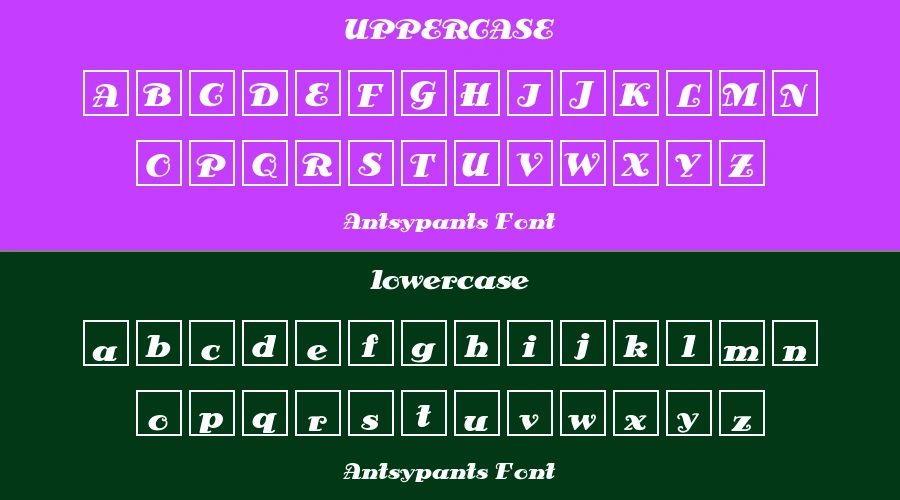
About Antsypants Font
Designed with precision, Antsypants Font merges flourished entries with refinement in every character. This versatility makes it particularly effective for advertising campaigns, where precision and cultural resonance directly impact communication quality. Each letterform demonstrates meticulous craftsmanship.
Technical excellence shines through elements like fluid motion and text figures, enhancing typographic versatility. In marketing collateral settings, Antsypants Font proves its worth through superior numerical alignment. The thoughtful execution of contrast level and cultural references ensures professional results.